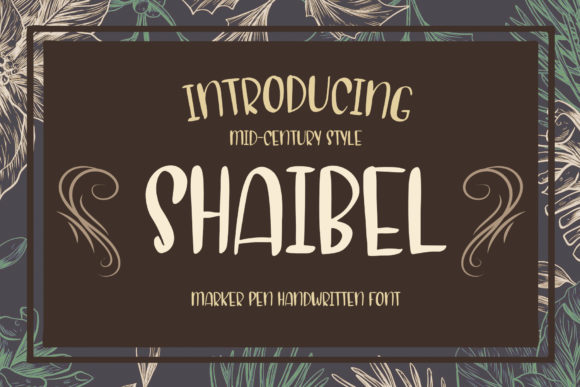
Meet the adorable Shaibel Font, a masterpiece from the creative minds at iareCotton Duck. This enchanting script has a magic touch, transforming your words into a playful and memorable symphony. Perfect for capturing the joy and innocence of childhood, Shaibel is the ideal choice for baby banners, adding a touch of whimsy to any special occasion.
Shaibel's charming curves and playful spirit will steal your heart. It's perfect for branding, packaging, invitations, and any design where a touch of magic is needed. Create stunning quotes, eye-catching t-shirts, adorable labels, or inspiring posters with a font that speaks volumes.
Don't settle for ordinary when you can have extraordinary. Embrace the charm of Shaibel and watch your creations come alive with a sprinkle of bliss. Every letter dances with joy, inviting you to craft messages that resonate with warmth and delight. Let Shaibel paint a smile on your designs and bring happiness to all who encounter its enchanting embrace.